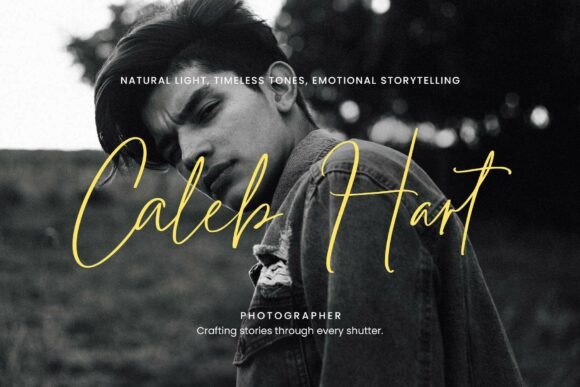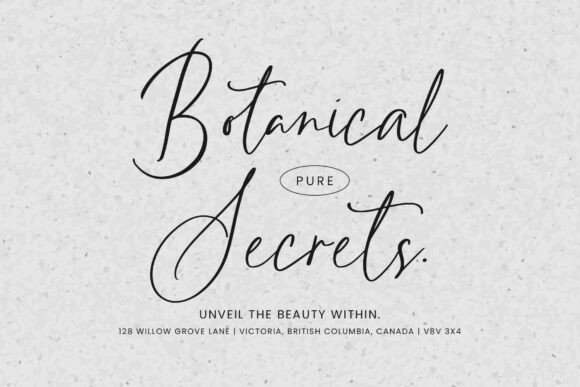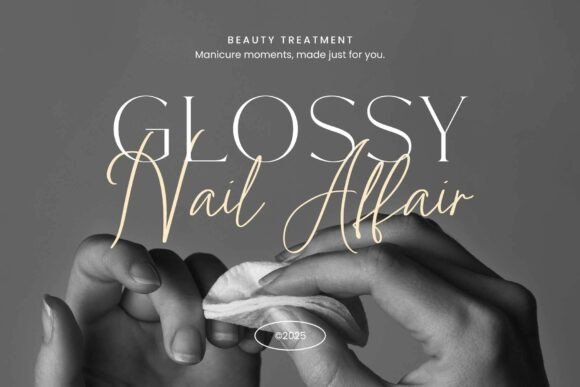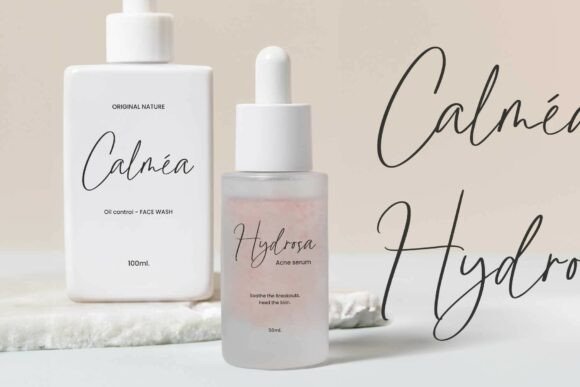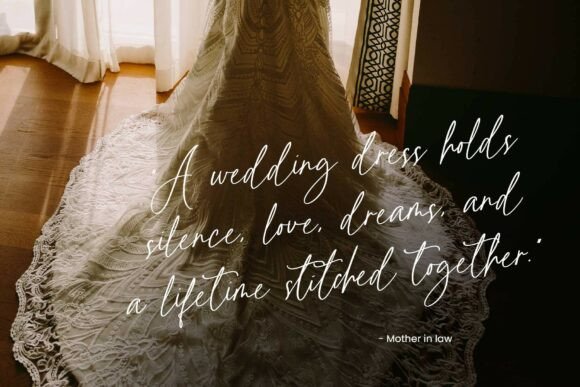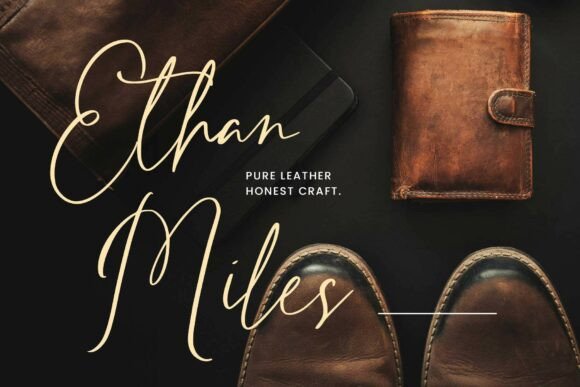
Introduction to Rainylight Font
Rainlight is a beautiful handwritten script, joyfully crafted with clean strokes and bouncy letterforms that resemble natural handwriting.
This charming font brings a soft, heartfelt touch to your designs — chic, romantic, and deeply personal Perfect for weddings, greeting cards, logotypes, branding, social media posts, websites, signatures, labels, and more.
Key Features of Rainylight Font
Why Choose Rainylight Font?
Rainylight Font offers exceptional quality and versatility, making it a valuable addition to your design toolkit. Whether you’re creating for personal projects or commercial use, Rainylight Font delivers professional results.